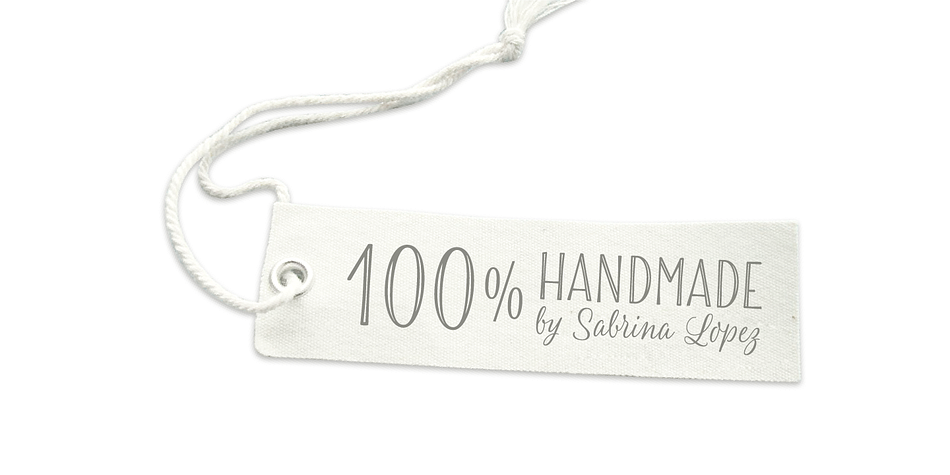
Blend
Designed by Sabrina Lopez, Blend is a multiple classification font family. This typeface has twenty-one styles and was published by Typesenses.
In the Coffee universe, a blend is a combination of different kinds of beans to get a more balanced taste.
- A bouncing informal Script programmed by Open Type that offers a wide range of features like ligatures, swashes, endings, initial forms and lots of alternates (work with fi ligatures activated)
- Playful Dingbats: among others, cups of coffee and tea, hearts, stars, cupcakes, pies
- Decorative Ornaments, frames and ribbons
- Casual Roman legible fonts, Regular and Bold
- Inline hand-lettered fonts and their fills to make the effect it is painted with another color.
For example, write a word using Blend Inline Fill and paint it Cyan.
You will have your outline filled with another color!
- Handmade Roman Capitals with Discretional Ligatures
This layered font is flavored with the handcrafted spirit that characterizes all Typesenses’ fonts and it is perhaps the one that most shows the hand of its author, Sabrina M.
Lopez.
Highlighting the Blend font family.
Blend font family example.
Blend is a hand drawn collection that takes its cues from the visual universe of bakeries and coffee shops. The name refers to the combining of different kinds of coffee beans to get a balanced taste, and Blend does just that, although here each typographic flavor can also be enjoyed separately. Projects such as branding, children’s books, wedding invitations and labels are sweetened with this cute family.
Blend has extensive Western, Central and Eastern European language support.